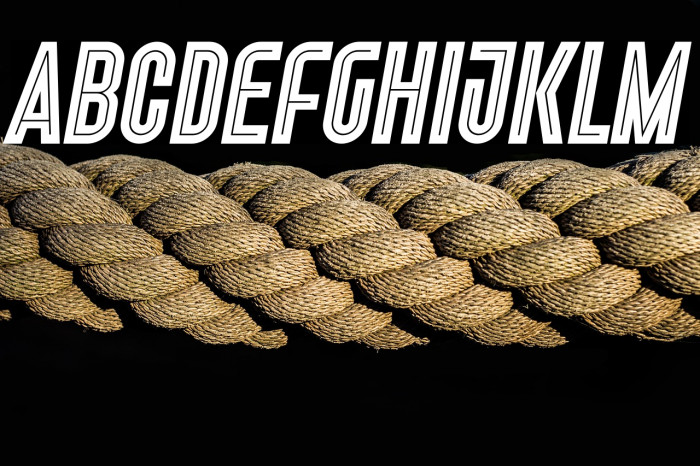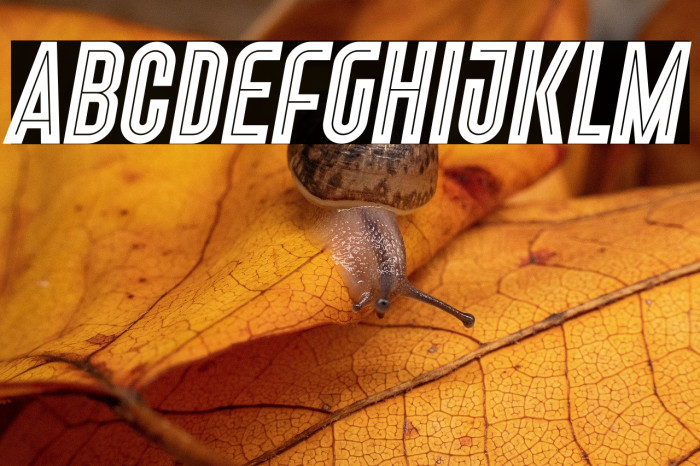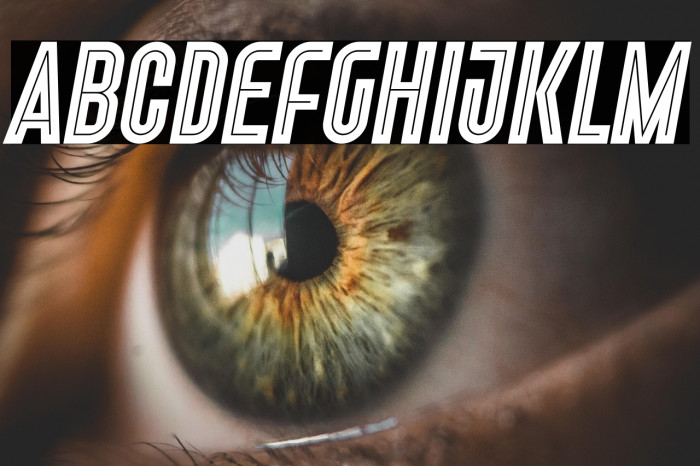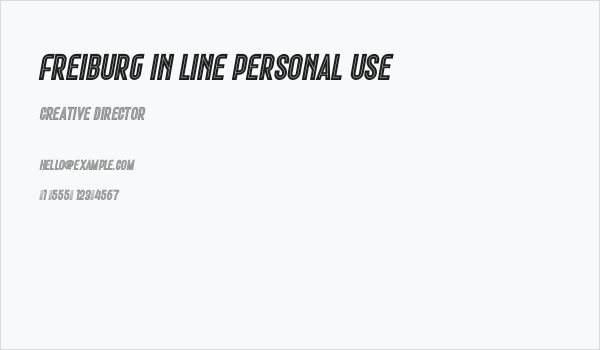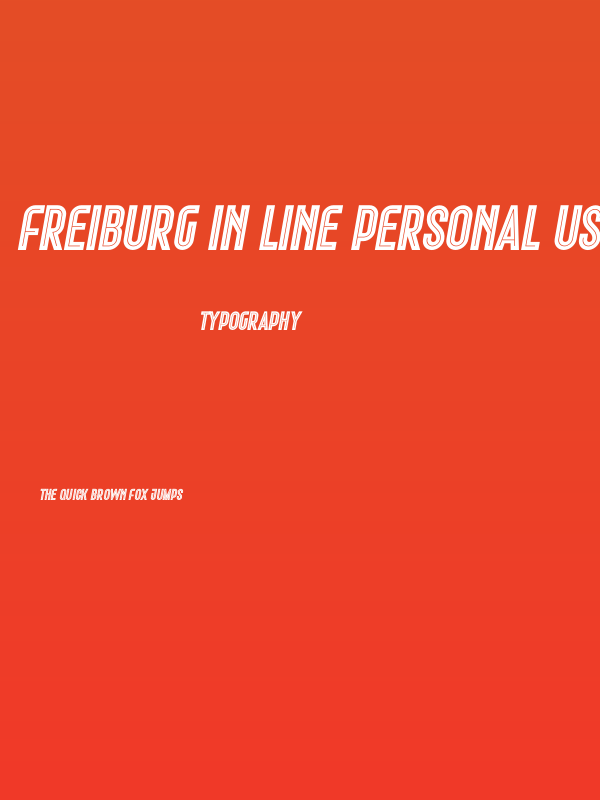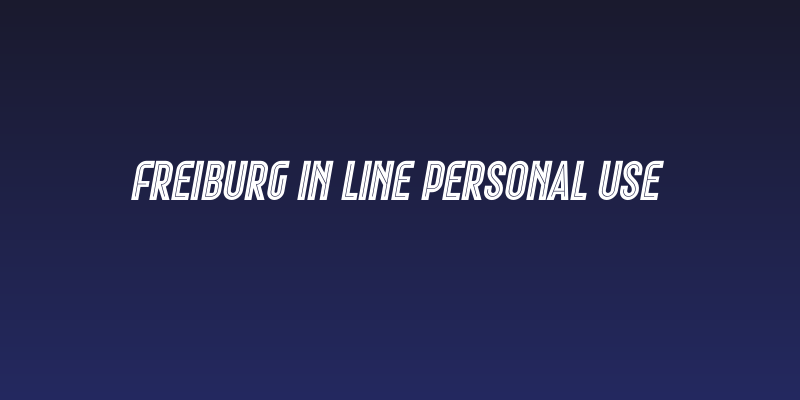
Freiburg In Line PERSONAL USE Font
Freiburg In Line PERSONAL USE Description
This font features a bold, modern design with a distinct inline style that adds depth and dimension to each character. The uppercase letters are prominently displayed with a slight slant, giving them a dynamic and forward-moving appearance. The numbers and special characters maintain the same inline style, ensuring consistency across all elements. The font's clean lines and geometric shapes make it suitable for contemporary design projects. Its unique style is eye-catching and ideal for making a statement in any visual context.
| Proposed Projects | Ideal for branding, posters, headlines, and any project requiring a bold, modern aesthetic. |